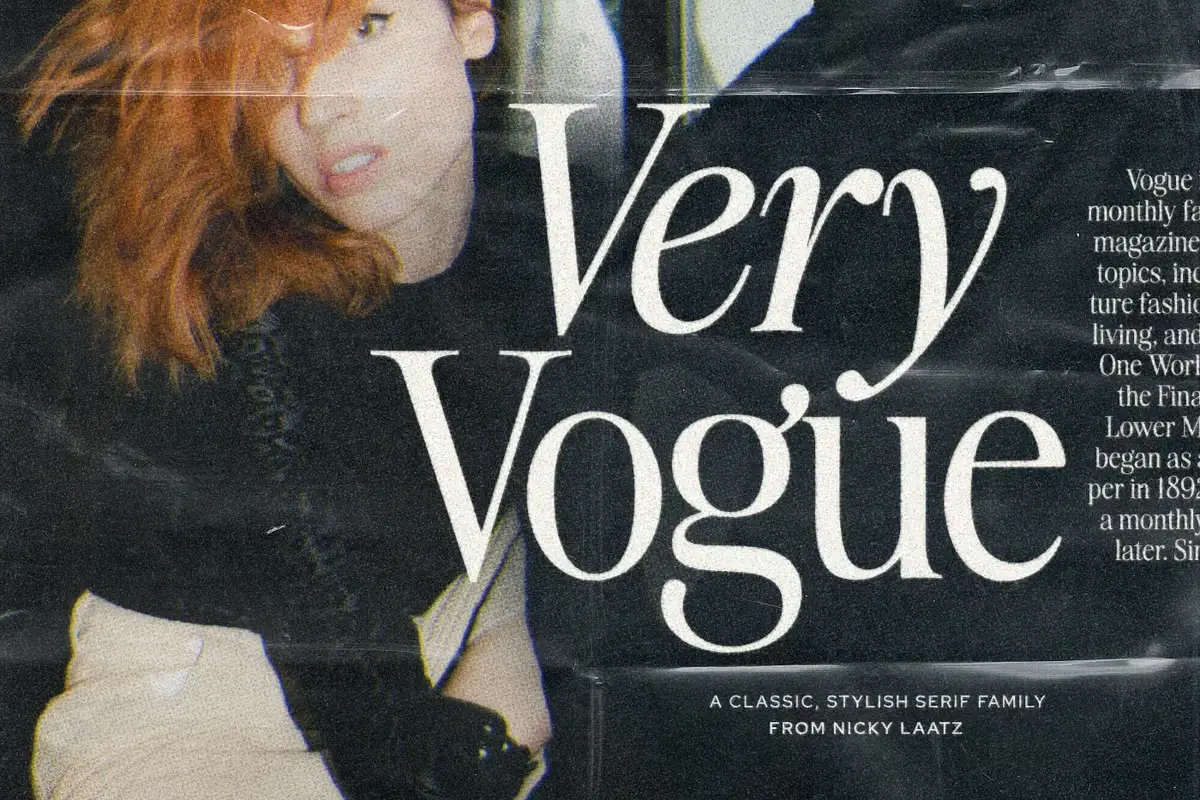
Very Vogue is a sophisticated serif font inspired by the timeless elegance of fashion magazines across various decades, beginning in the 1980s. Designed with an effortless yet refined aesthetic, this typeface captures the essence of high-end editorial layouts. Its gracefully curved letterforms and meticulous attention to detail contribute to an upscale and polished appearance, making it ideal for projects requiring a touch of sophistication and modern luxury. Combining classic charm with contemporary finesse, Very Vogue seamlessly bridges traditional beauty with modern design trends.
The typeface is available in two distinct styles: Display and Text. The Display sub-family is crafted for large-scale typography, such as headlines and attention-grabbing titles. Featuring high contrast and naturally tight spacing, it creates a bold and striking visual impact, enhancing the overall aesthetic appeal. Meanwhile, the Text sub-family is designed for readability, with lower contrast and a slightly heavier weight, ensuring a smooth and comfortable reading experience for extended passages of text.
For maximum effect, designers can experiment with different letter spacing settings to suit various applications. Tighter spacing enhances the luxurious appeal of display text, while slightly looser spacing improves legibility in smaller text sizes. Whether for high-end branding, fashion editorials, or luxury advertising, Very Vogue provides an elegant and versatile solution that elevates design projects with its distinctive and stylish presence.